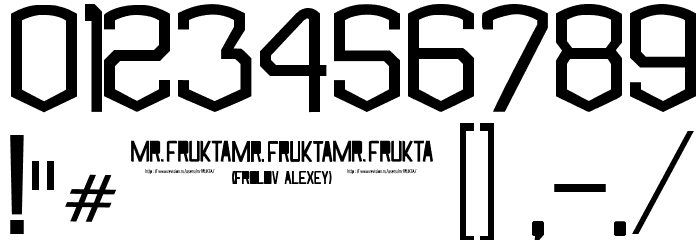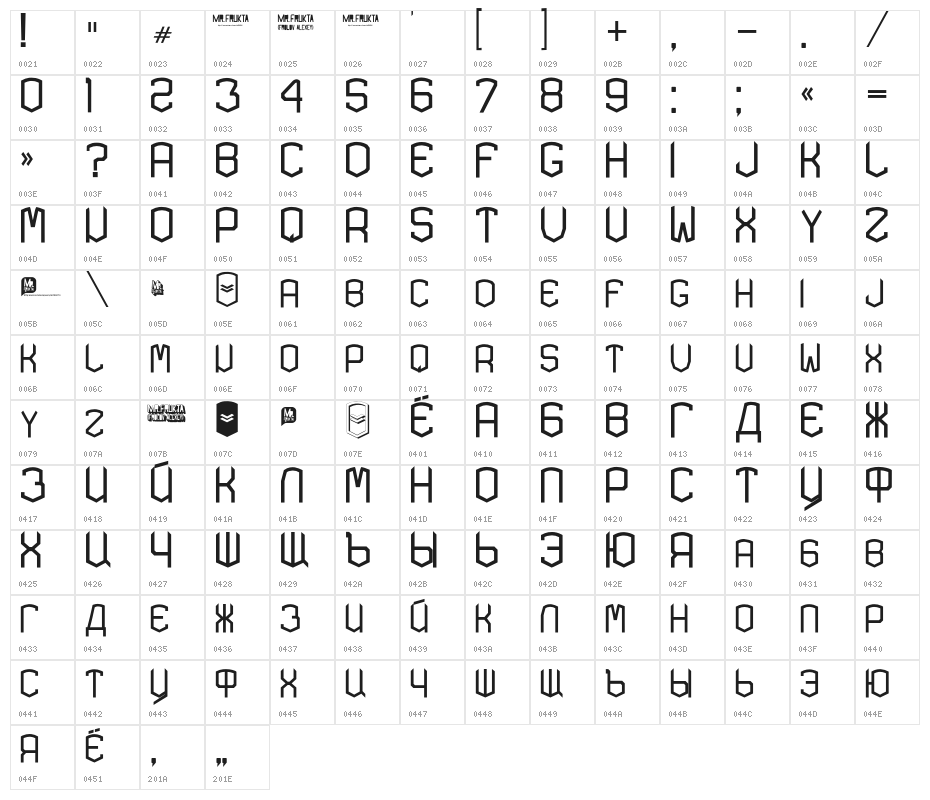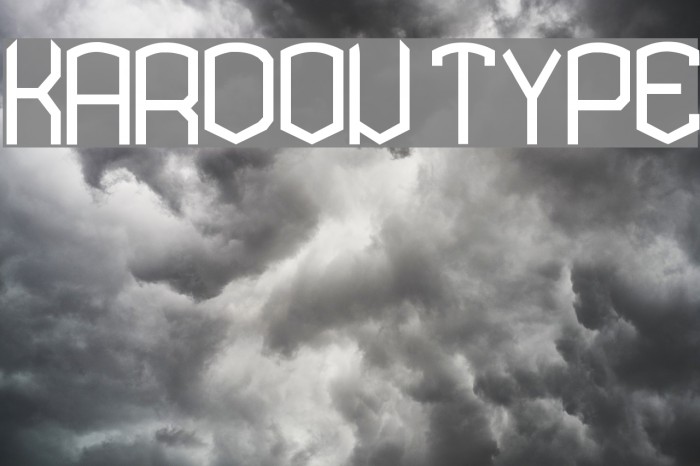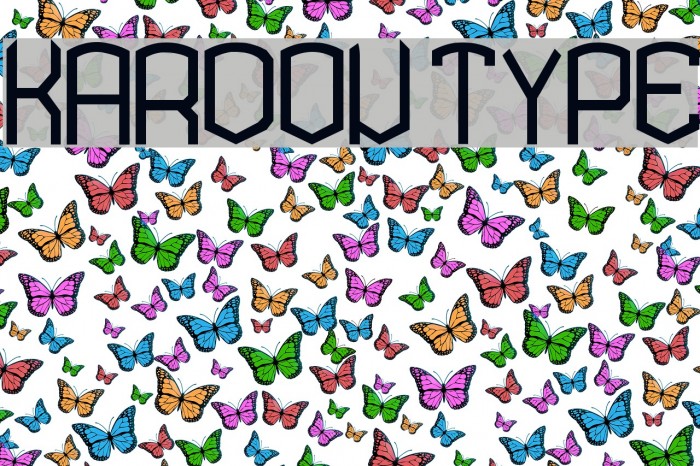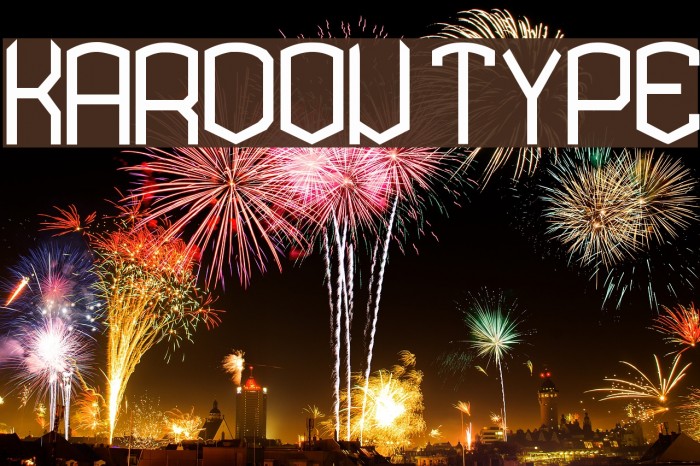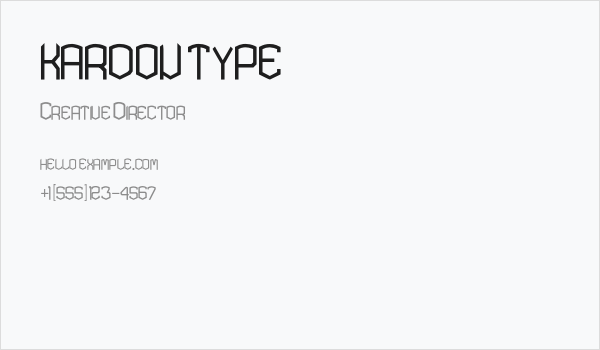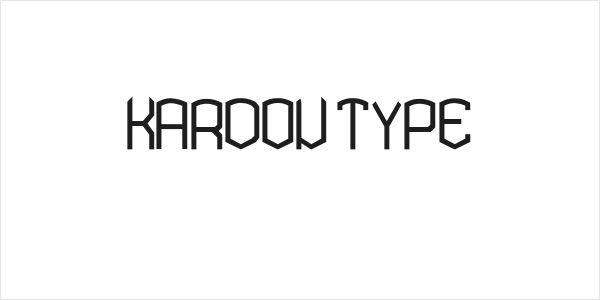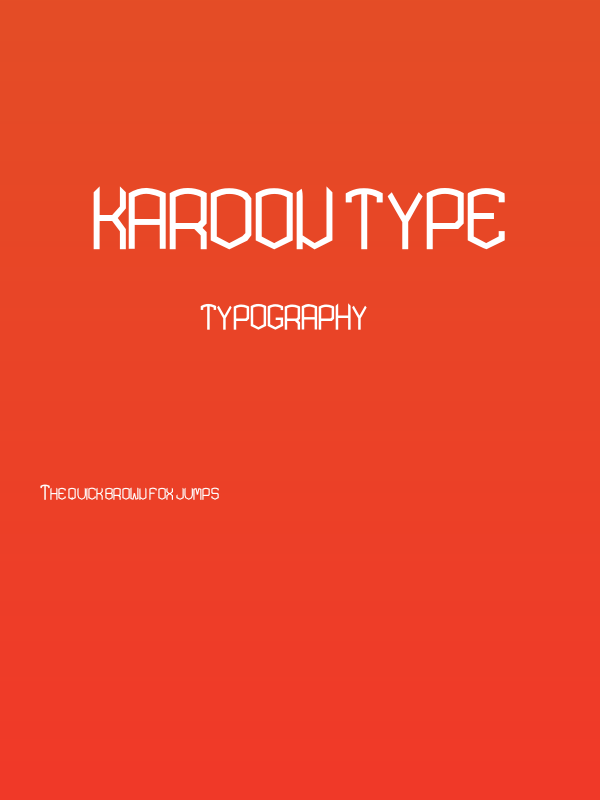
KARDON TYPE Font
KARDON TYPE Description
This font features a bold, geometric design with angular edges and a futuristic aesthetic. The uppercase and lowercase letters maintain a consistent height, creating a uniform appearance. The characters are constructed with straight lines and sharp angles, giving them a mechanical and modern look. The numbers follow the same design principles, ensuring a cohesive style throughout. Special characters are included, maintaining the same angular and bold characteristics. This font is ideal for projects that require a strong, impactful visual presence.
| Proposed Projects | Ideal for technology branding, sci-fi movie posters, video game titles, and modern logo designs. |